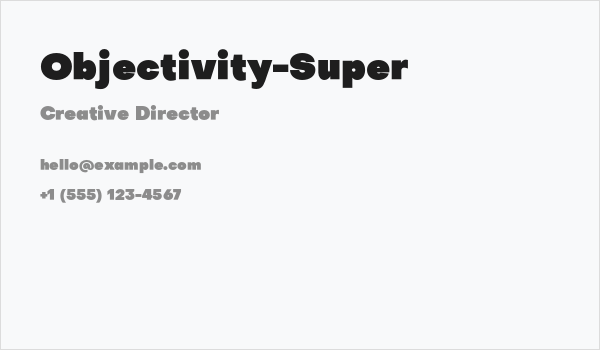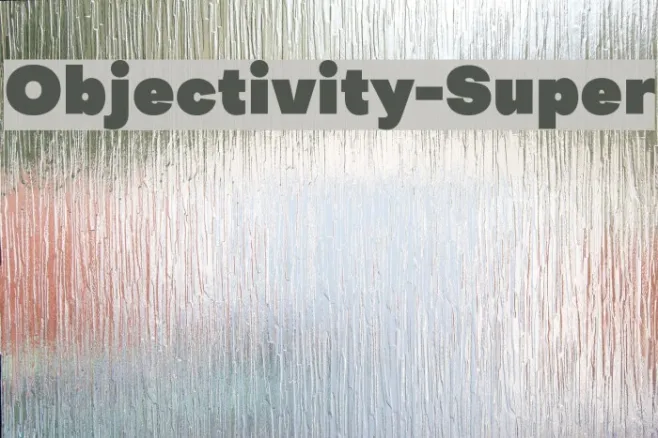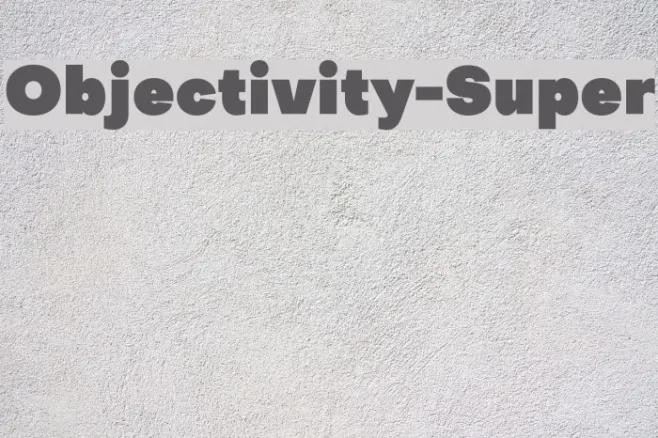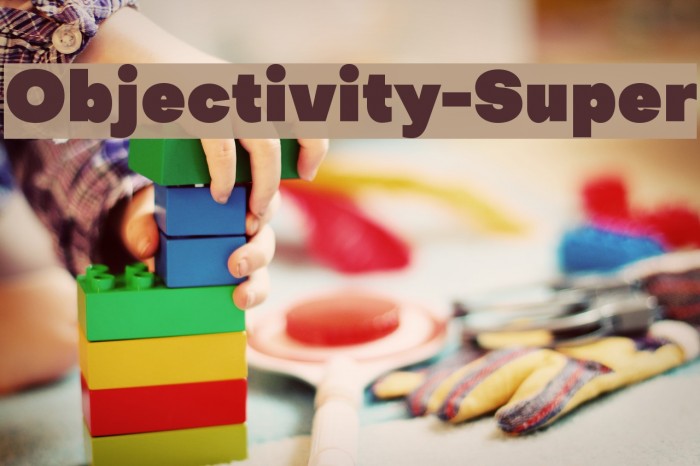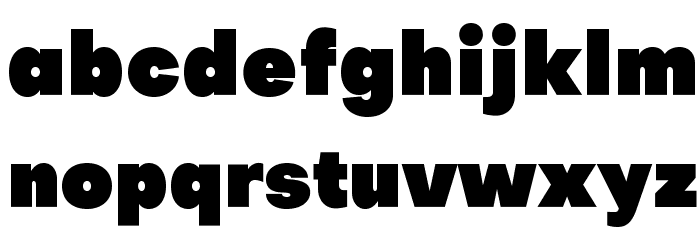
Objectivity-Super Font
Objectivity-Super Description
This font features a bold and impactful design, characterized by thick, uniform strokes that convey strength and confidence. The uppercase and lowercase letters maintain a consistent weight, ensuring a cohesive look across all text. The numerals and special characters are designed with the same boldness, making them stand out prominently. The overall appearance is clean and modern, with a slight geometric influence that adds to its contemporary feel. This font is highly legible, even at smaller sizes, due to its clear and straightforward design.